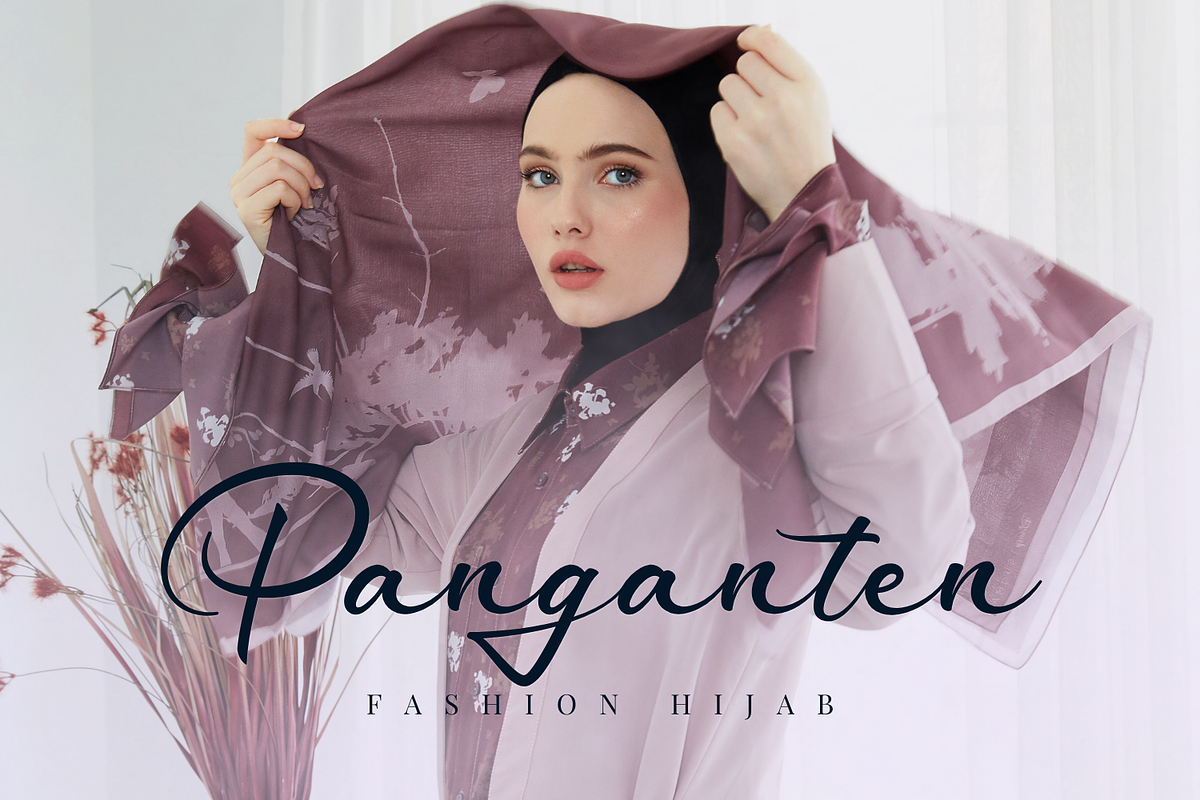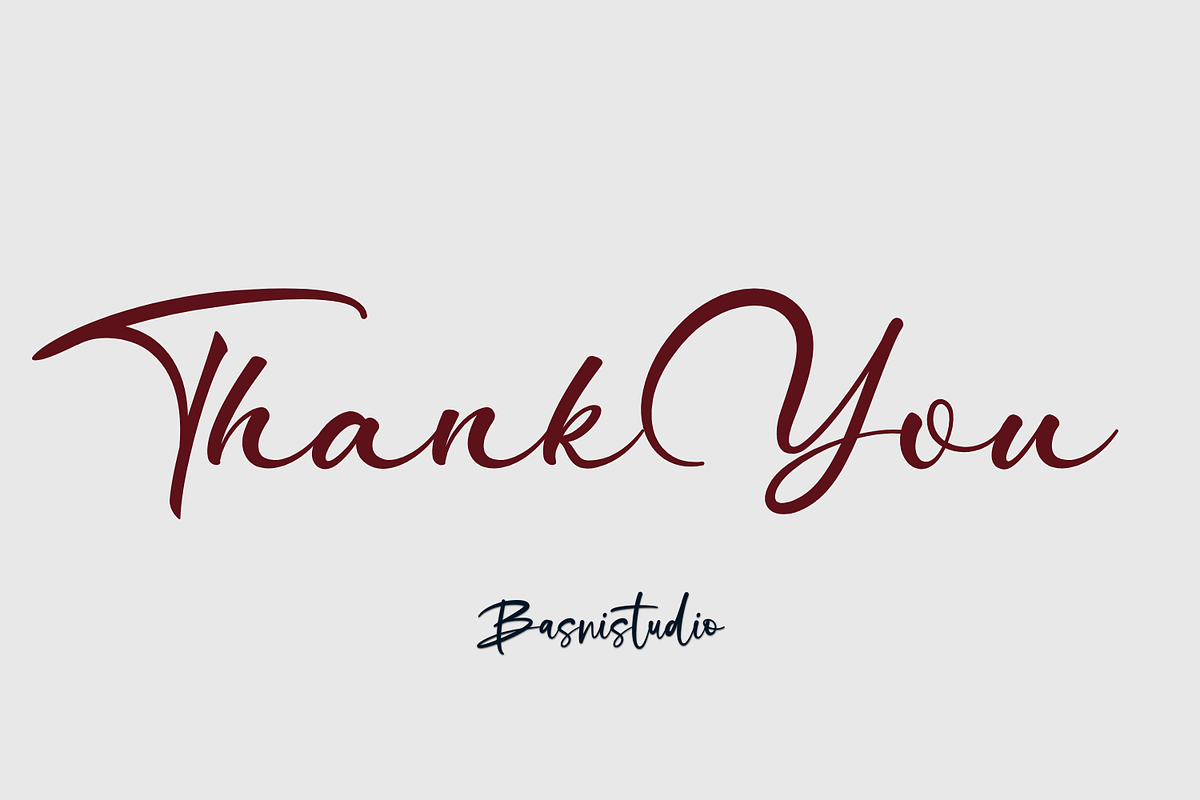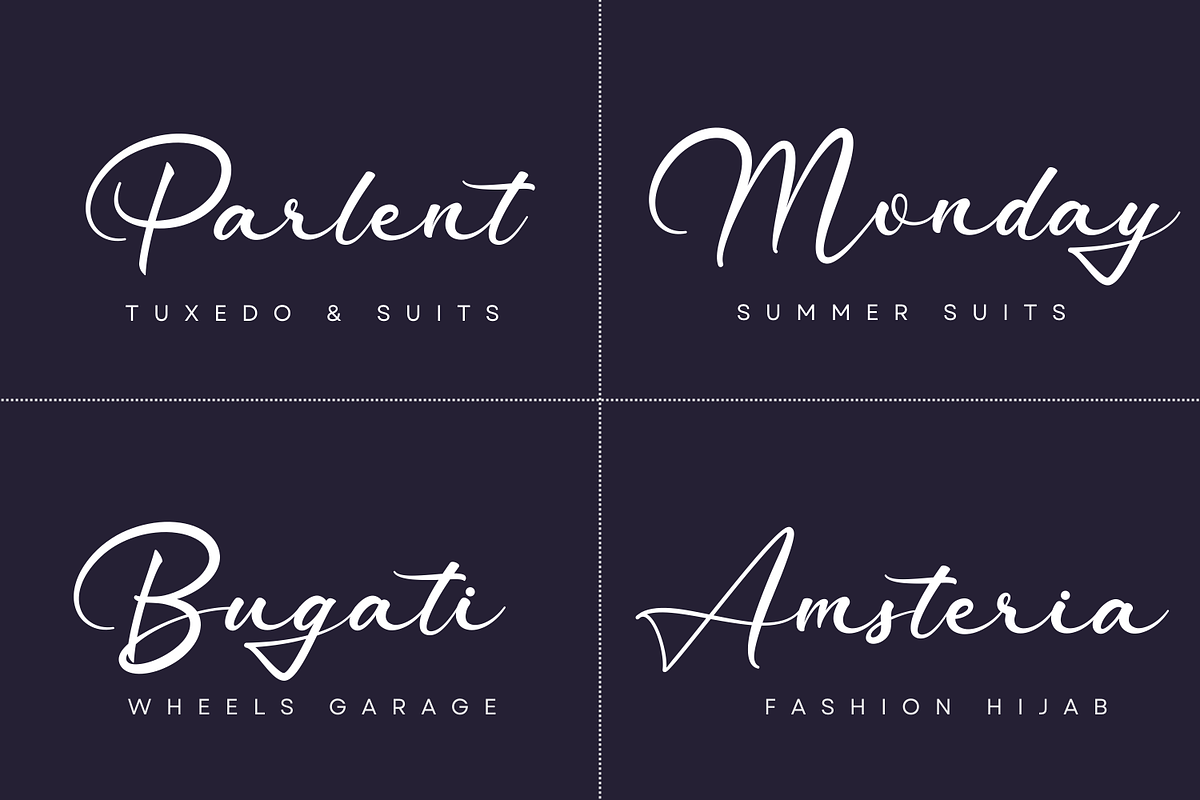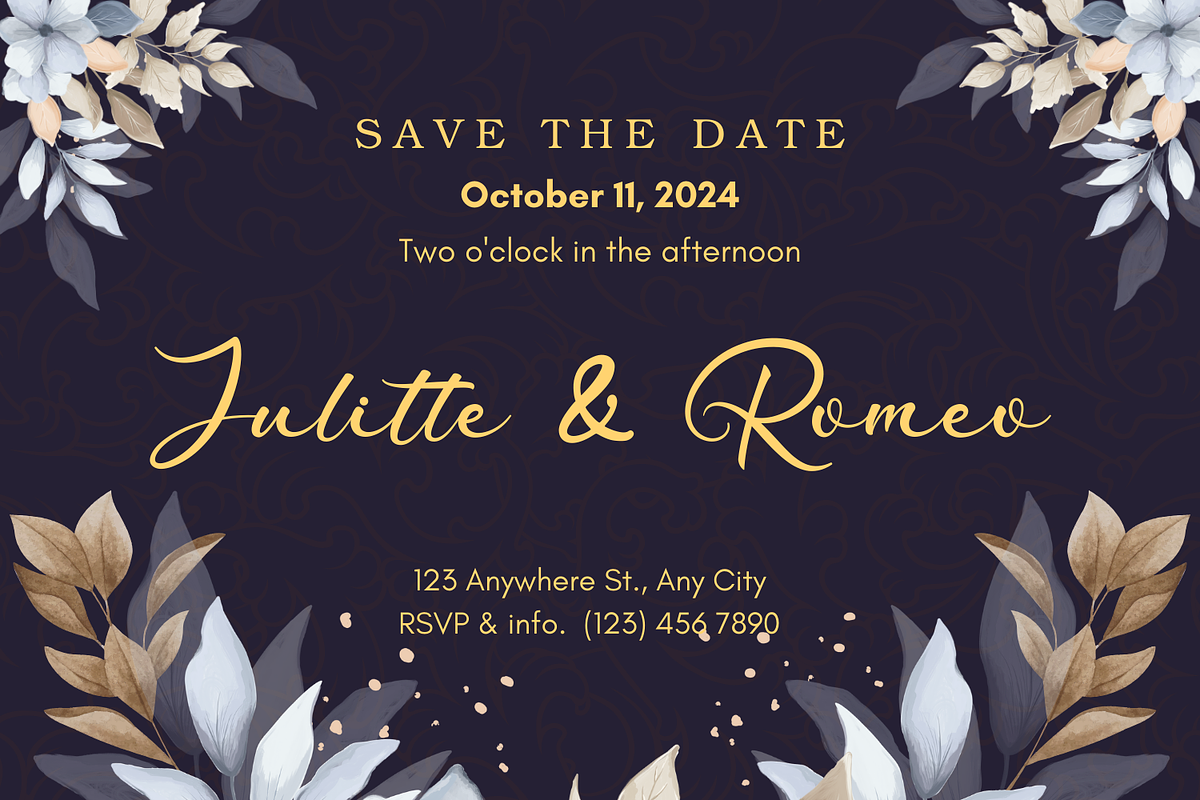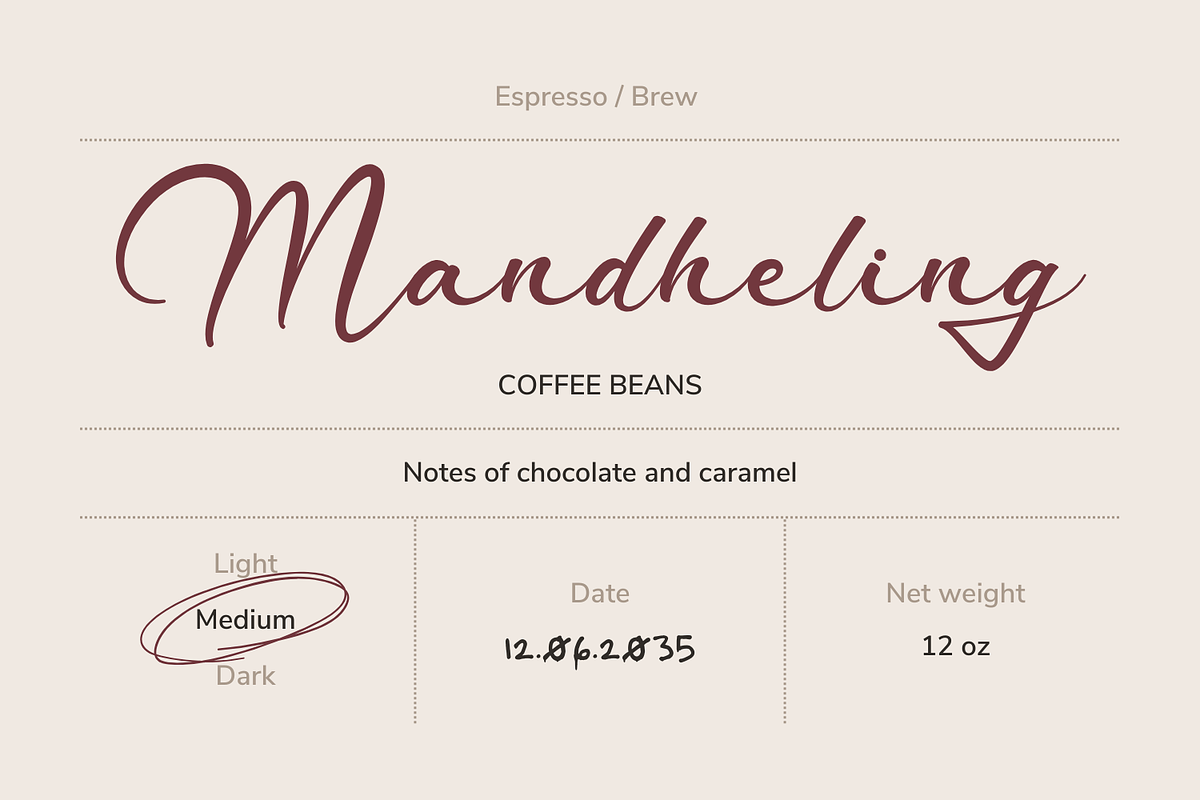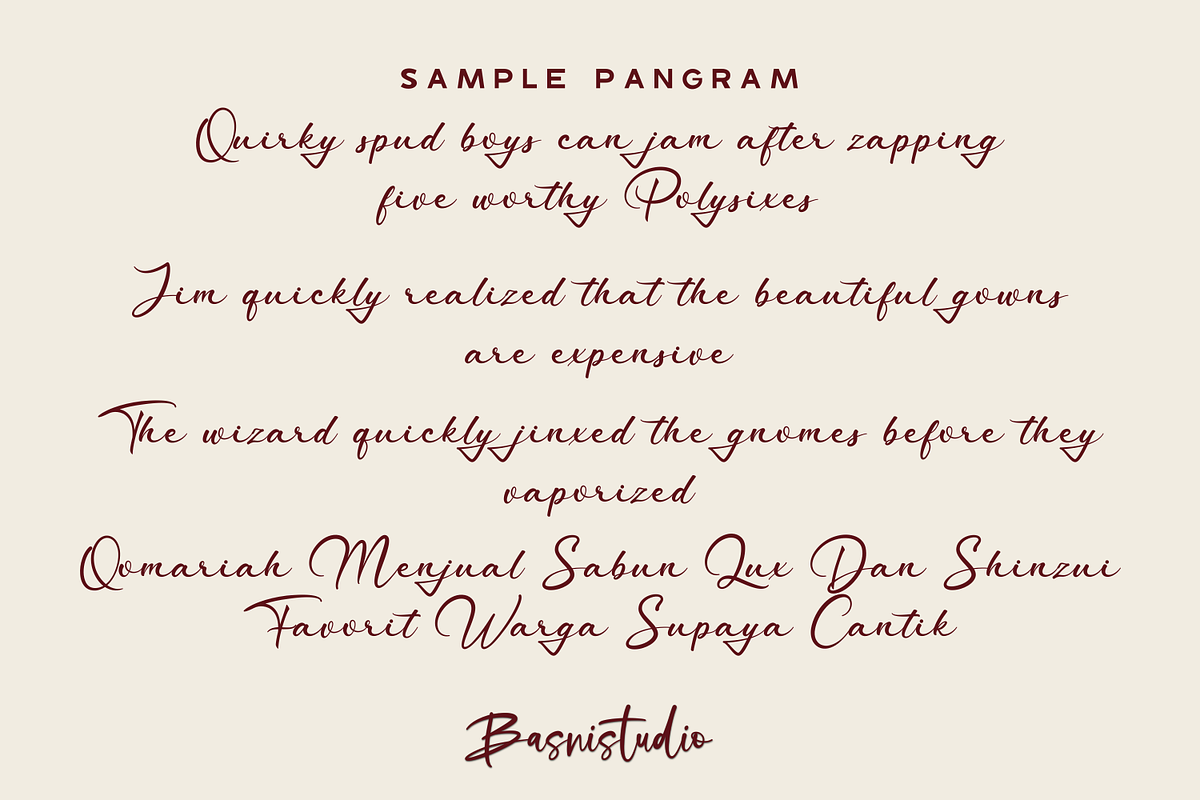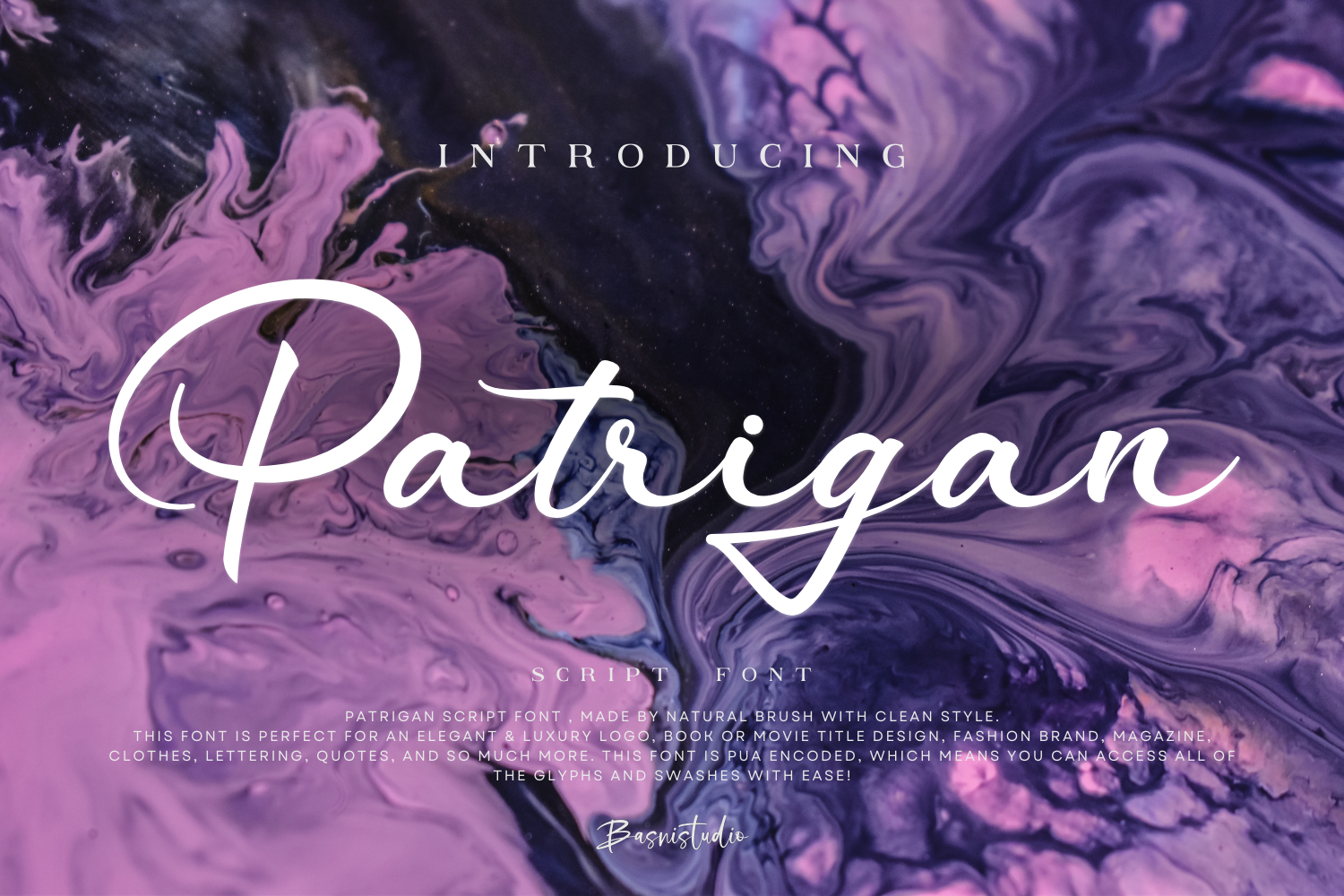
Patrigan Script Font
Introducing Patrigan Script Font
Patrigan Script Font, made by Naturaly Brush & Clean Style.
This Font is perfect for an elegant & luxury logo, book or movie title design, fashion brand, magazine, clothes, lettering, quotes, and so much more. This font is PUA encoded, which means you can access all of the glyphs and swashes with ease!